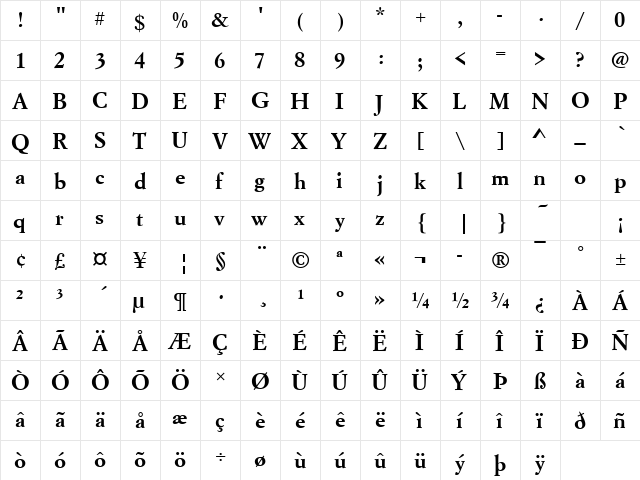
Garamond Becker No9 Med Regular
Design Context for Garamond Becker No9 Med Typeface
Garamond Becker No9 Med takes a measured approach to typography — its balanced proportions and neutral character make it a reliable workhorse for both digital and print work.